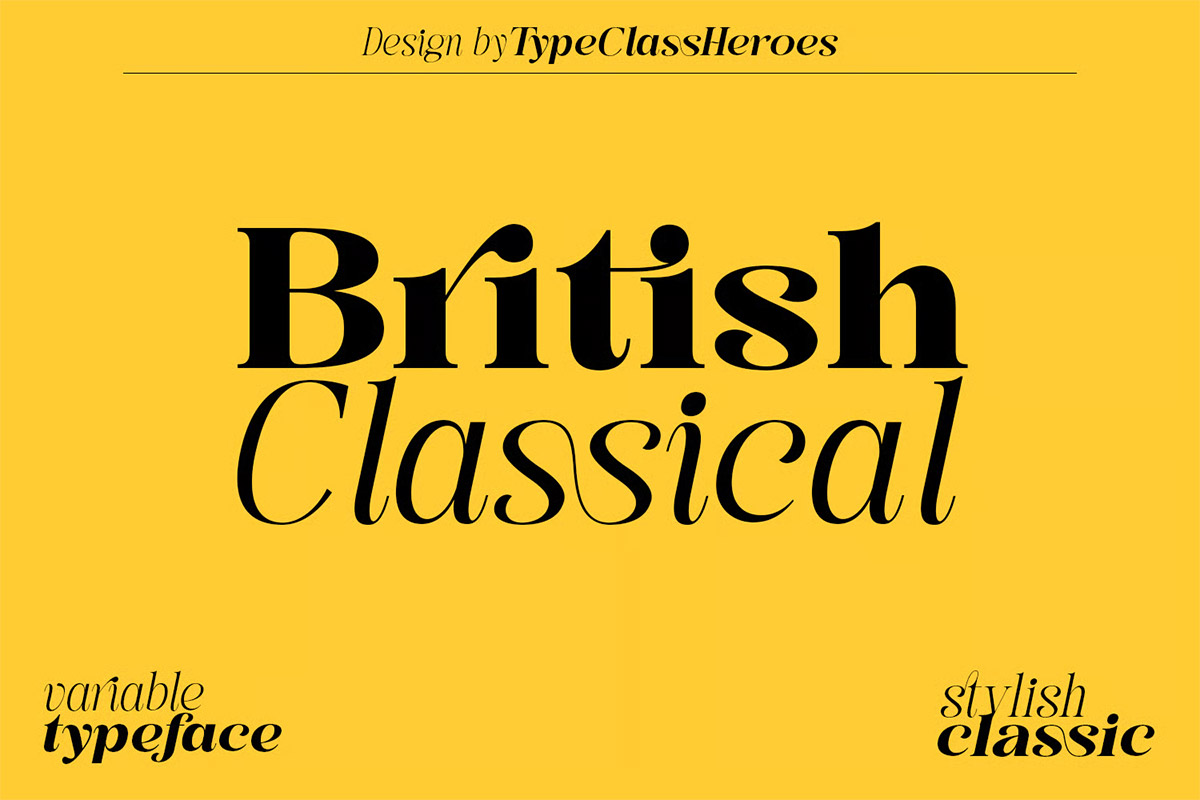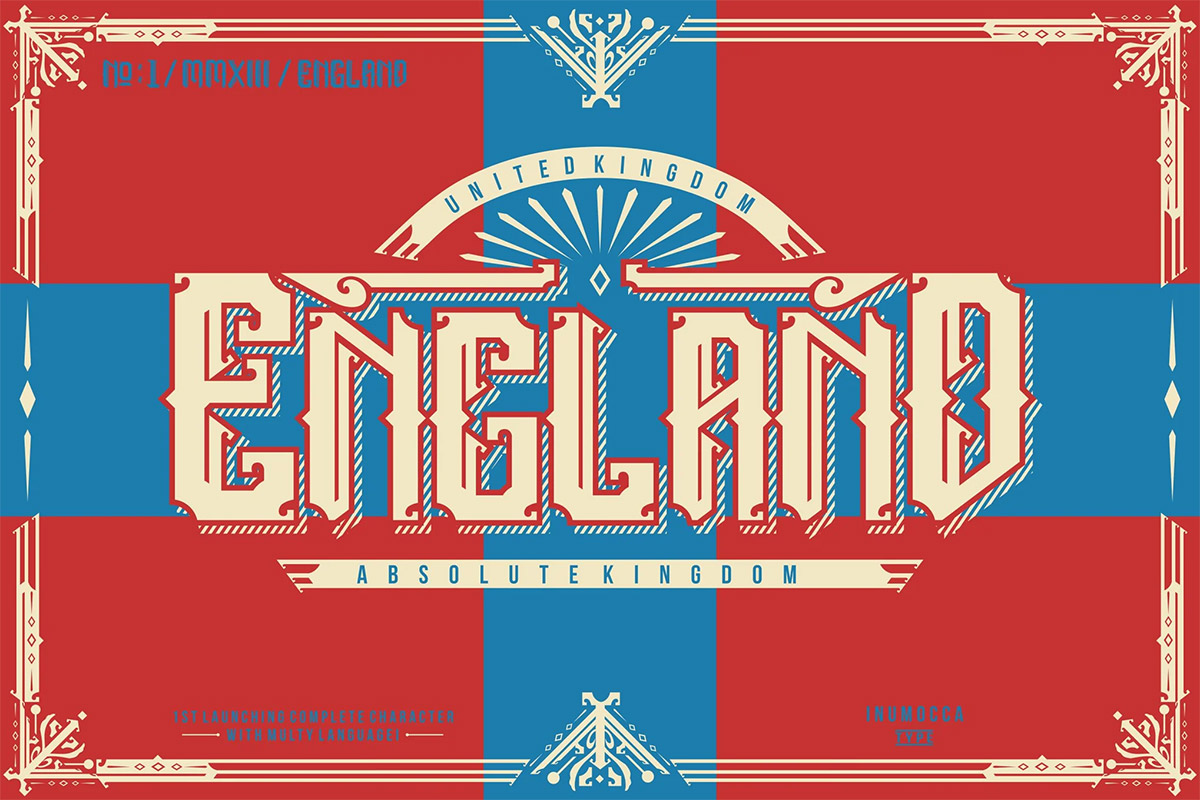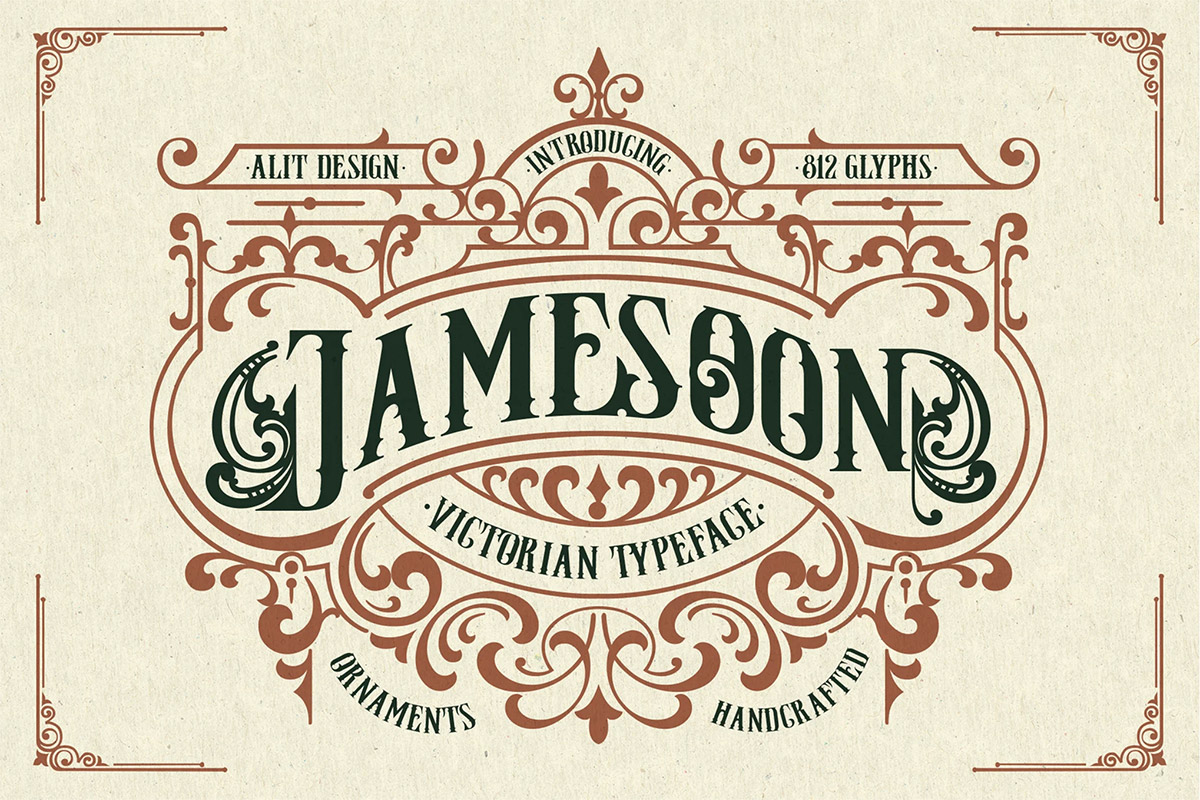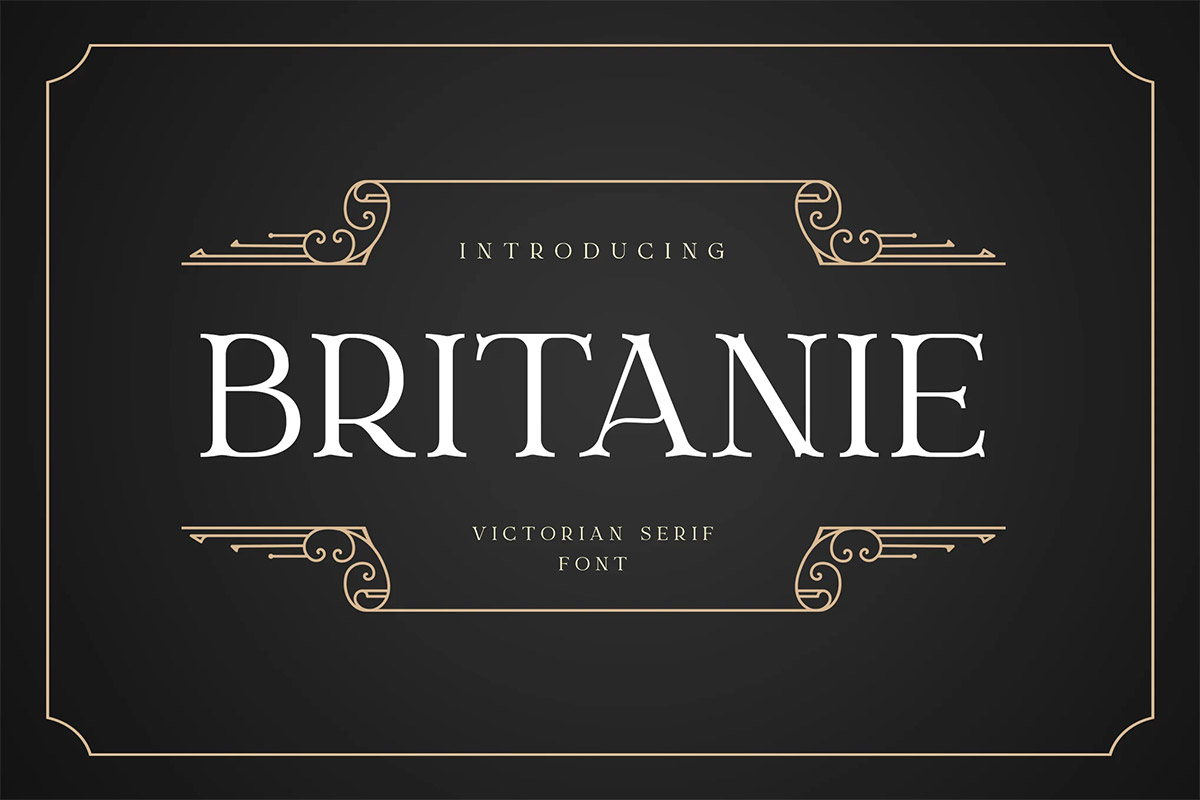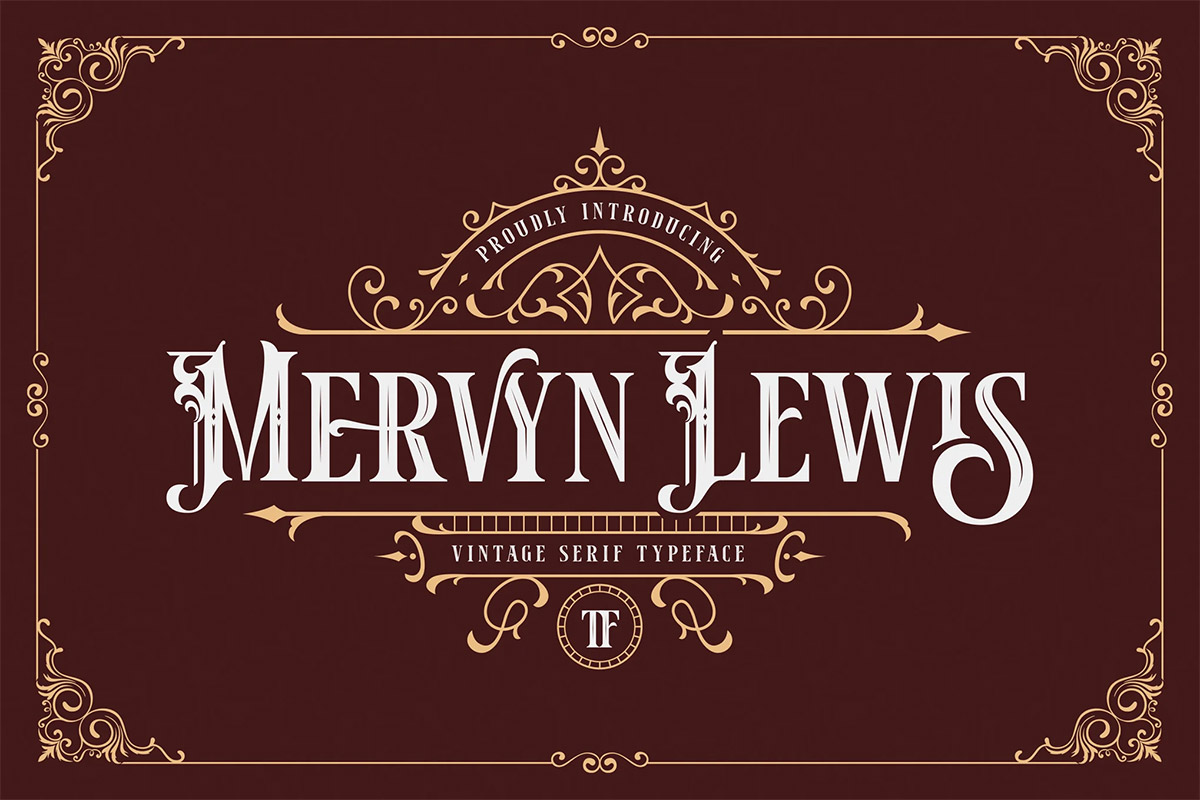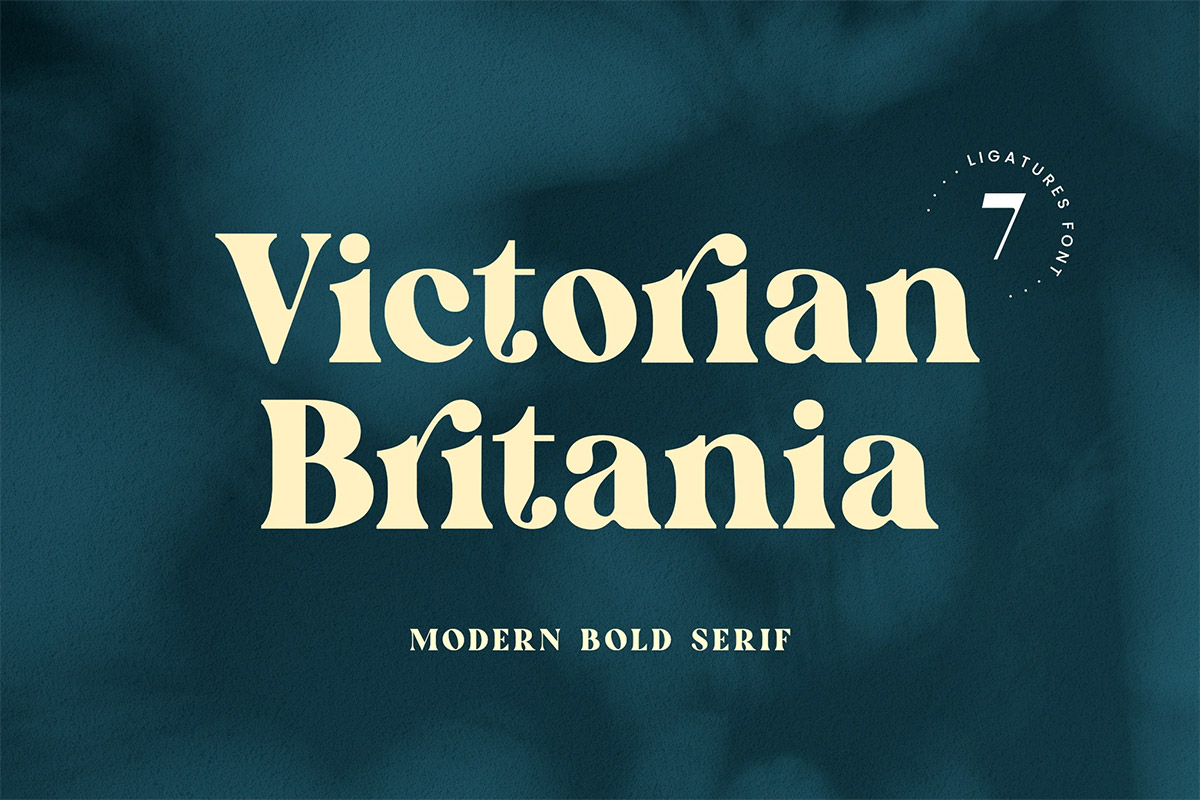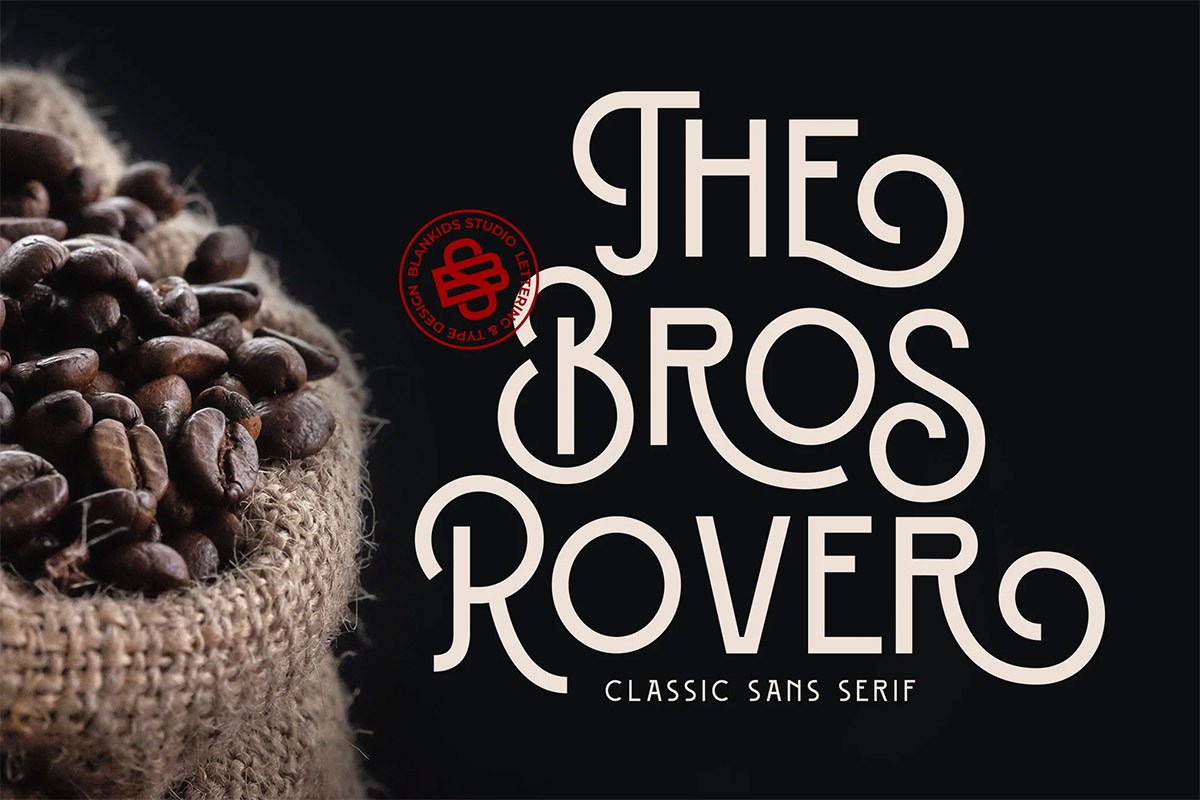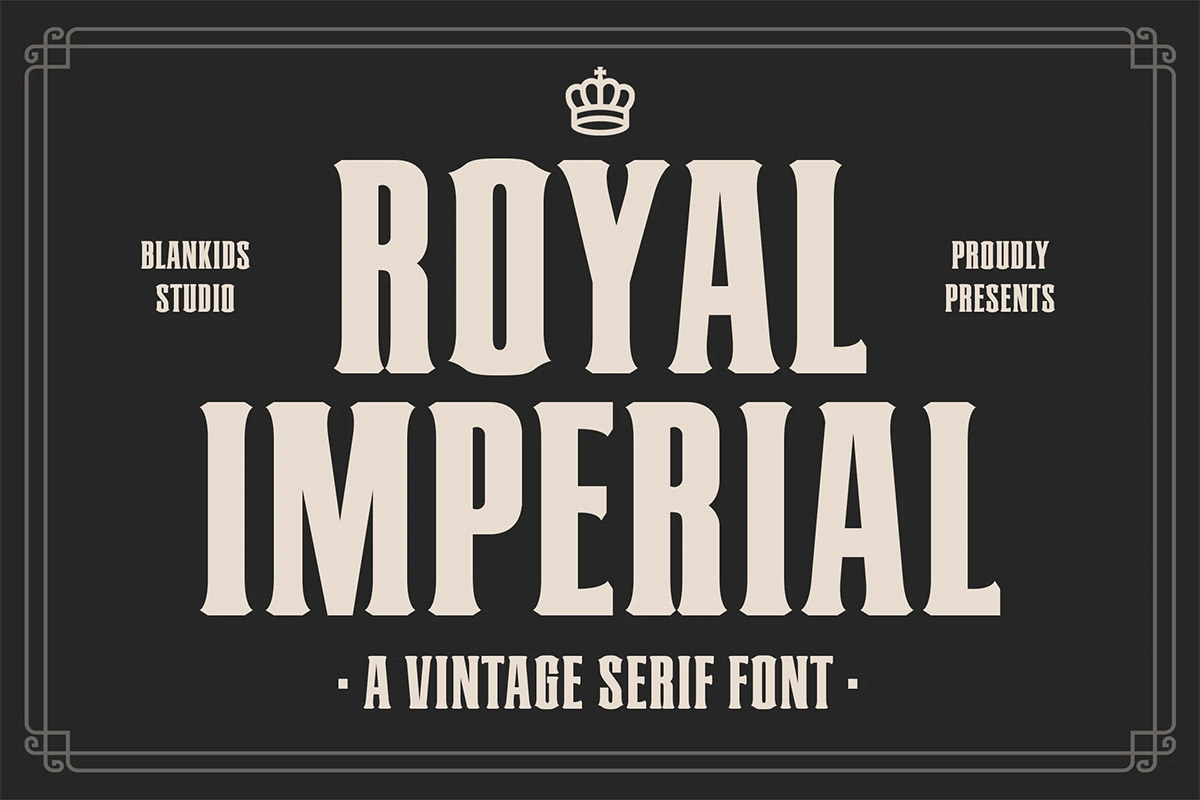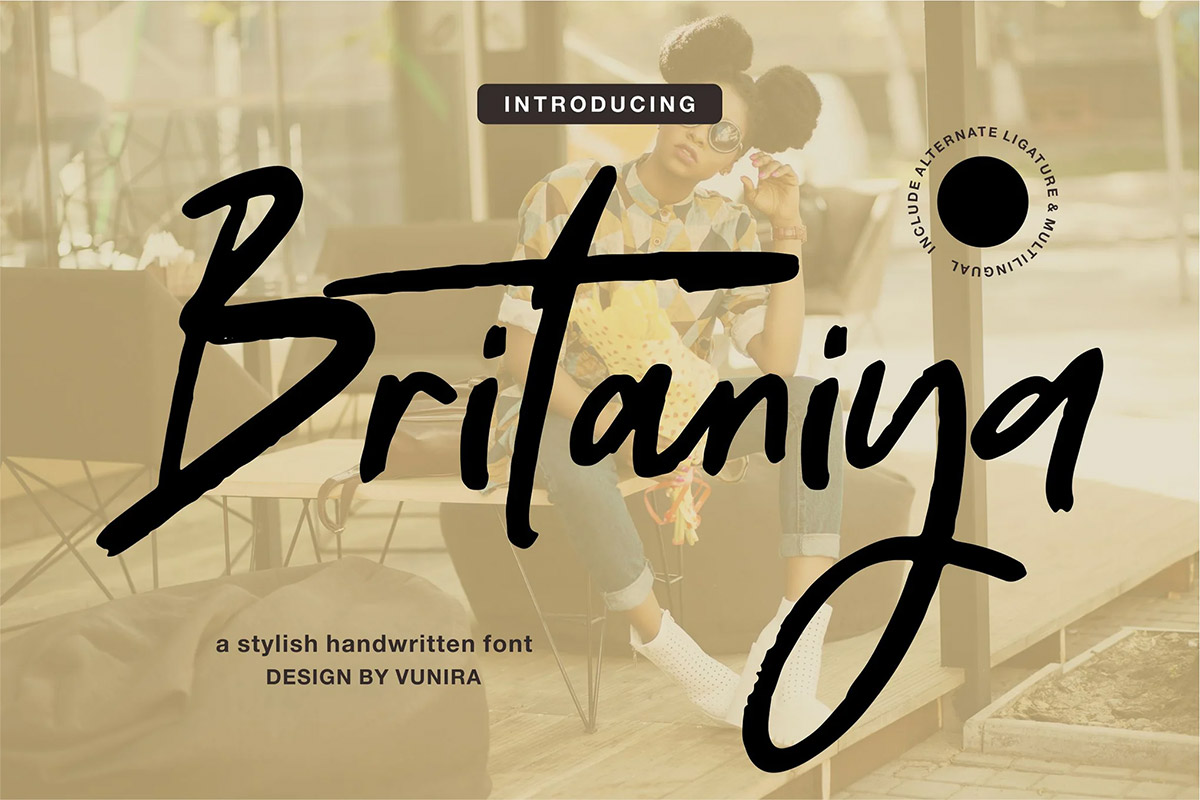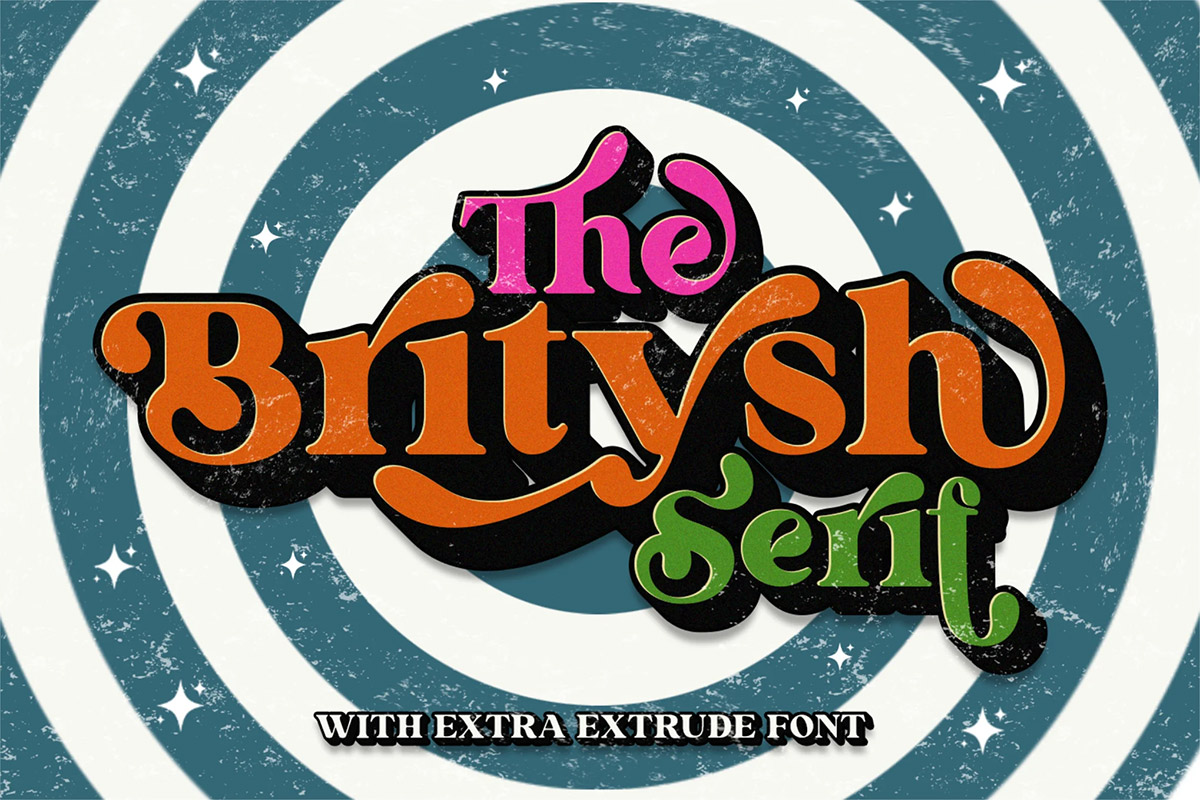
30+ Best British Fonts for Sophisticated, Stylish Projects
British fonts have a clean and classy look. You’ll often see them on old street signs, book covers, newspapers, packaging, and branding from the UK. They’re known for being easy to read, well-balanced, and professional — without looking boring or too modern.
These fonts work great when you want your design to feel serious, neat, and stylish. I made this list for projects that need that kind of vibe. Whether you’re creating a logo for a premium brand, designing wedding invitations, working on print layouts, or just want your text to look more polished — these fonts get the job done.
This collection includes everything from traditional serif fonts to modern sans-serifs. Some feel more formal, others feel fresh and minimal — but all of them keep that smart, British style. They’re not loud. They’re not trendy. They just work.
If you want fonts that bring structure, elegance, and a clean design look — you’ll find them here.
British Classical Font
Really excited to introduce BritishClassical and BritishClassical Neue is a classic feat modern serif family. It’s clean and smooth with 3 variable weight combining the regular and italic and much alternative inside. Suitable to create any branding, product packaging, invitation, quotes, label, poster, logo etc.
Retro British Display Font
The Retro British Display Typeface is a beautiful and attractive vintage serif font that exudes classic charm with its graceful curves and elegant ligatures that help give the work an authentic and inviting look. It looks perfect for logos and branding, social media posts, advertising, and product design.
England Font
England Font was inspired from scroll letter kingdom on medieval age for your upcoming design project. This font is suitable to create any branding, product packaging, invitation, quotes, label, poster, logo etc.
Jamesoon Victorian Typeface
Step into the grace of a bygone era with the Jamesoon Victorian Font, a beautifully crafted serif typeface inspired by the opulent charm of the Victorian period. This font captures the essence of vintage allure with a modern twist, making it the perfect choice for designs that require sophistication, elegance, and a touch of classical romance.
Britanie Vectorian Serif Font
Britanie Vectorian Serif Font is a cool and unique vintage display font that can make it easier to convey the message in your design. Use for awesome display, labeling, clothing, movie screen, poster, movie title, gigs, album covers, headlines magazine, logos, and much more. It’s also could be good for both fun and semi-formal text.
Mervyn Lewis Vintage Serif Typeface
If you’re looking for a retro and unique font (One which will bring all sorts of happiness to any project) the Mervyn Lewis font is just for you. It combines a sense of classic, cuteness, elegance, and vintage which makes it distinctive enough to give any project life and energy.
Victorian Britania Serif Font
Introducing our new product the name is Victorian Britania Bold Modern Serif Font. Modern Serif font that feels beautiful classy, elegant, and modern. This font is perfectly suited for a wide variety of projects, such as signature, stationery, logo, wedding, typography quotes, magazine or book cover, website header, clothing, branding, packaging design, and more. Also, fashion-related branding or editorial design displays both masculine and feminine qualities.
Bros Rover Classy Sans Serif Font
Introducing a new font is Bros Rover Classic Sans Serif, a tastefully classic British-style sans serif font great to use for logotype, poster, badge, wedding invitation, book cover, tshirt design, packaging and any more.
Royal Imperial Vintage Font
Introducing ‘Royal Imperial,’ a captivating serif font that stands as the epitome of bold elegance and vintage charm. This typeface exudes strength and precision with its robust and assertive design, making it the ideal choice for branding, display, logotypes, and corporate projects that demand attention.
Britaniya Handwritten Font
Britaniya Handwritten Font is a stylish and cool font with a calligraphy style, that will look so beautiful on invitation like greeting cards, branding materials, business cards, quotes, posters, and more!
Britysh Serif Font
Britysh font is a well-balanced contemporary font with a fancy, unique, and versatile vintage serif font that you can combine to get any variations and unique shapes easily just in seconds with stack it. It is a serif display font with moderate contrast that perfect for branding projects, logo, wedding designs, social media posts, advertisements, product packaging, product designs, label, photography, watermark, invitation, stationery, and any projects, it makes with a high level of legibility.
British Virgin Font Duo
British Virgin – a simple, modern and minimalist sans-serif typeface paired with classy handwritten font. British virgin brings a touch of casual elegancy and sophistication to branding. British virgin is a beautiful choice for any creative endeavor, creating elegant, chic, lifestyle design such as logos, title, cover, branding, display and magazine, and more. Let’s we make a beuatiful work with us.